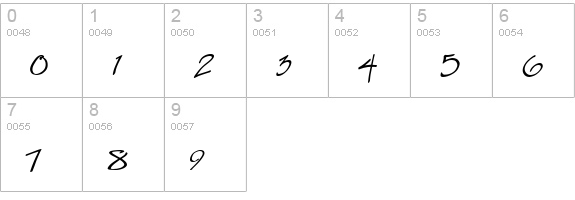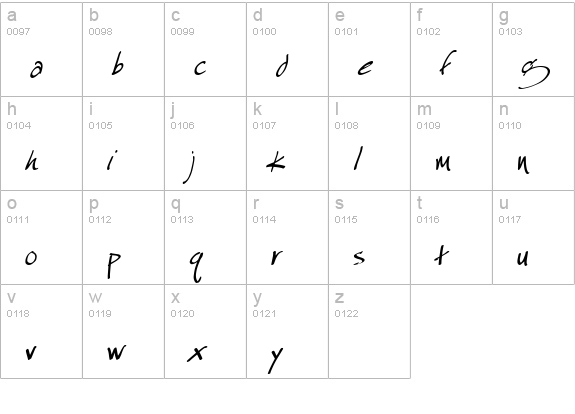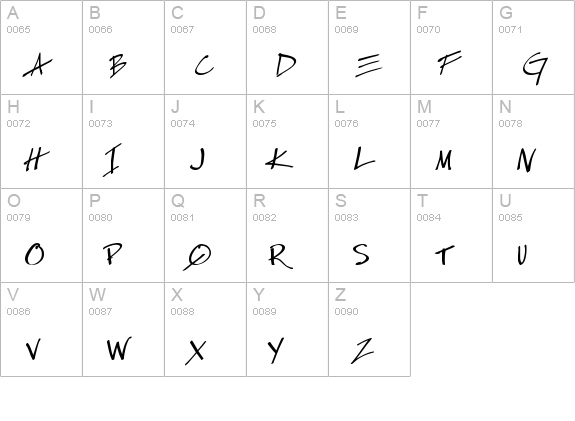
Especial Kay Demo Font Details
Especial Kay Demo font is a stunning display typeface that exudes elegance and sophistication. With its unique and intricate design, this font is perfect for adding a touch of luxury to your projects. The flowing lines and intricate details of Especial Kay Demo make it stand out and capture attention effortlessly. The best part? Especial Kay Demo font is completely free to use for personal and commercial projects. You can easily download this exquisite font at FontsMarket.com and start incorporating its beauty into your designs today. Whether you're working on a branding project, invitations, packaging, or any other creative endeavor, Especial Kay Demo font will elevate your work to the next level. Don't miss out on this fantastic opportunity to enhance your designs with this exquisite typeface. Download Especial Kay Demo font now and let your creativity shine!